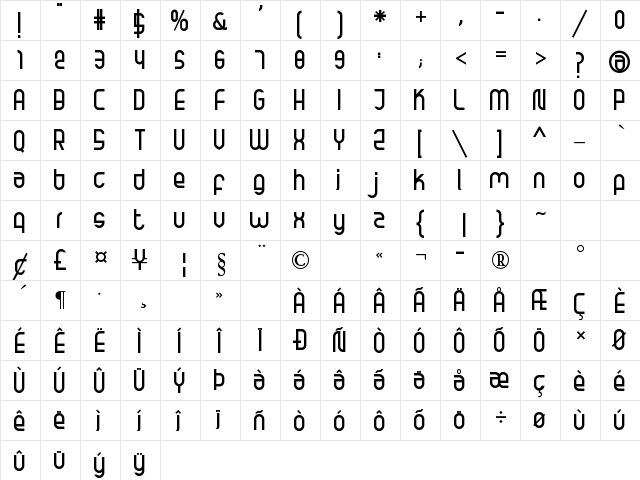
Dugal Regular Regular
Design Context for Dugal Regular Typeface
Dugal Regular is a composed and adaptable typeface that performs quietly and consistently across a wide range of design contexts.